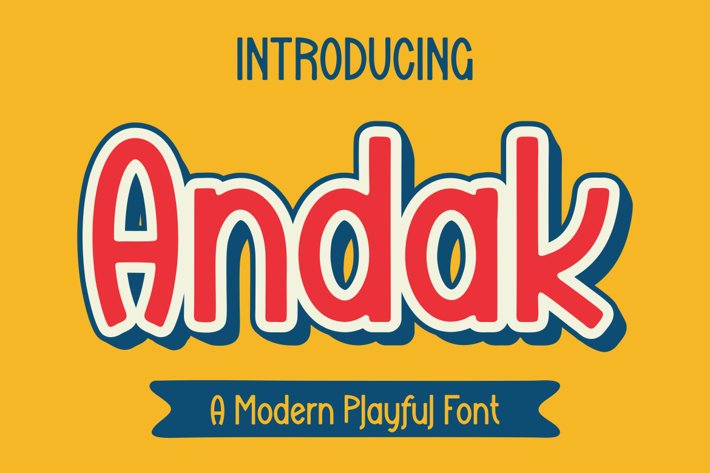
Andak Font
Introducing our new product Andak Font - Modern Font
Andak Font - Modern Font is a bold and authentic display font. The font is suitable for any branding project like logo, t-shirt printing, esport, and many more. outstanding in a wide range of contexts.